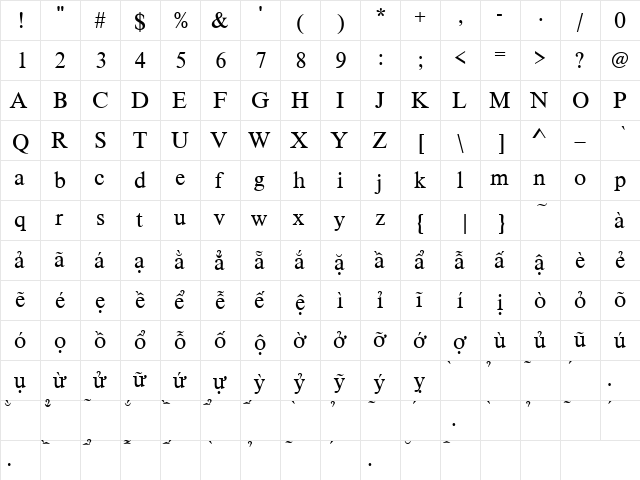
VietnameseTimesSSK Regular
Design Context for VietnameseTimesSSK Typeface
VietnameseTimesSSK takes a measured approach to typography — its balanced proportions and neutral character make it a reliable workhorse for both digital and print work.